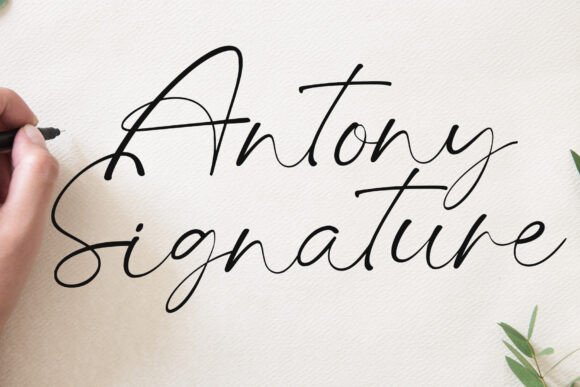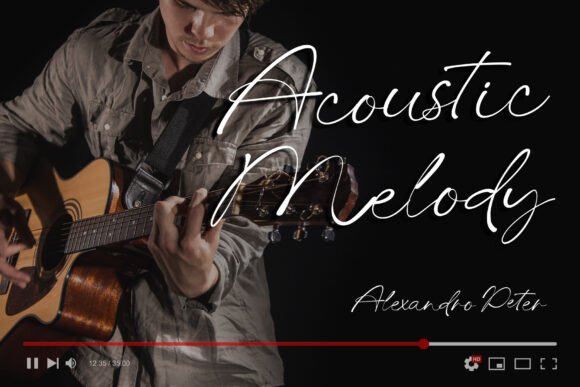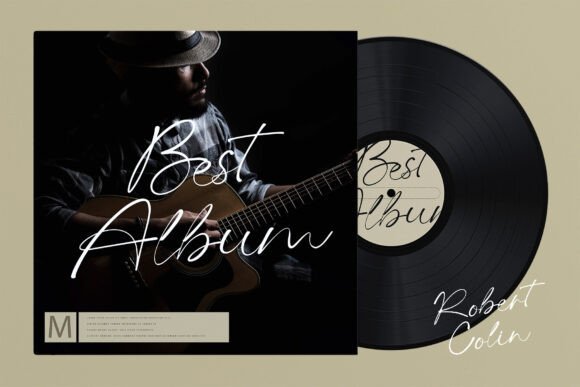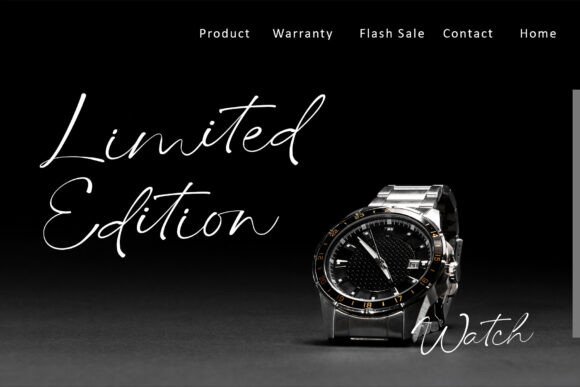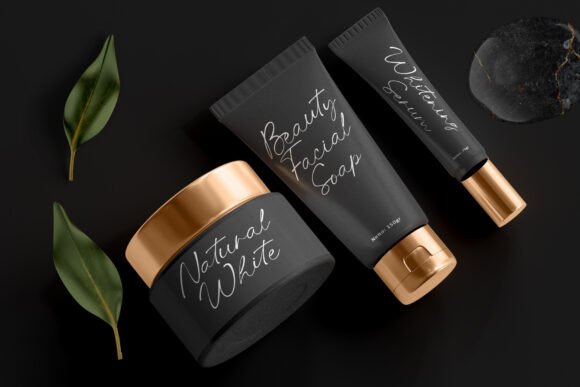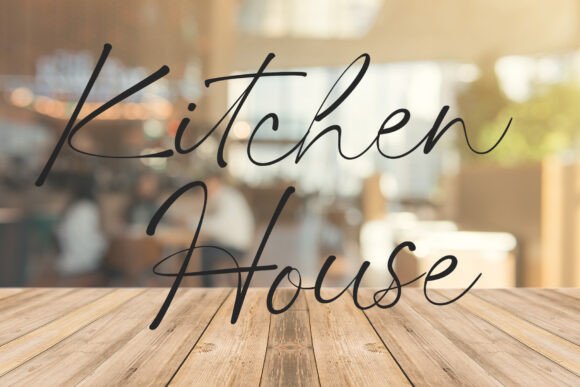
Introducing Arveton Font: Elevate Your Designs with Sophisticated Elegance
In the world of typography, few fonts manage to capture the essence of elegance and personal expression as effectively as Arveton Font. This sophisticated signature font is meticulously designed to blend the fluid beauty of handwritten strokes with modern elegance, making it an ideal choice for a variety of design projects. Whether you’re crafting logos, branding materials, wedding invitations, or stylish packaging, Arveton offers the perfect combination of authenticity and charm.
The Beauty of Handwritten Elegance
Arveton Font stands out for its unique ability to mimic the natural flow of handwritten signatures. Each letter is designed to flow naturally, as if written in real-time, adding a personal touch to your designs. This fluidity is not just aesthetically pleasing but also brings a sense of warmth and approachability to your work. In an era where digital designs often lack personal touch, Arveton bridges the gap by infusing your projects with a sense of humanity and emotion.
One of the key features that make Arveton Font incredibly versatile is its PUA (Private Use Area) encoding. This feature allows for easy access to a wide range of alternates and swashes, giving designers the creative freedom to customize their typography. Whether you’re looking to create a bold statement or a subtle impression, Arveton’s extensive range of alternates ensures that your designs stand out from the crowd.
• Logos and Branding: Arveton’s elegant strokes and modern charm make it an excellent choice for logos and branding materials. Its unique character can help establish a distinctive identity for your brand.
• Wedding Invitations: Add a touch of sophistication and romance to your wedding invitations and stationery with Arveton’s beautiful, flowing script.
• Stylish Packaging: Elevate your packaging designs with a font that exudes luxury and elegance. Arveton can help your products stand out on crowded shelves.
Why Choose Arveton Font?
Arveton Font is more than just a typeface; it’s a tool for designers and crafters looking to imbue their projects with a sense of style and sophistication. Here are a few reasons why Arveton should be your go-to font:
• Unique and Memorable: Its distinctive, handwritten elegance ensures that your designs leave a lasting impression.
• Highly Customizable: With PUA encoding and a range of alternates, you have the flexibility to create truly unique typography.
• Easy to Use: Designed with the user in mind, Arveton can be easily integrated into your design workflow.
Arveton Font is a game-changer for designers and crafters seeking to add a touch of elegance and personal expression to their work. Its sophisticated, signature style, combined with its versatility and range of alternates, makes it an invaluable asset for any design project. Whether you’re aiming to create stunning logos, captivating branding materials, beautiful wedding invitations, or stylish packaging, Arveton offers the perfect blend of modern elegance and handwritten charm. Elevate your designs to new heights with Arveton Font and make a lasting impression on your audience.